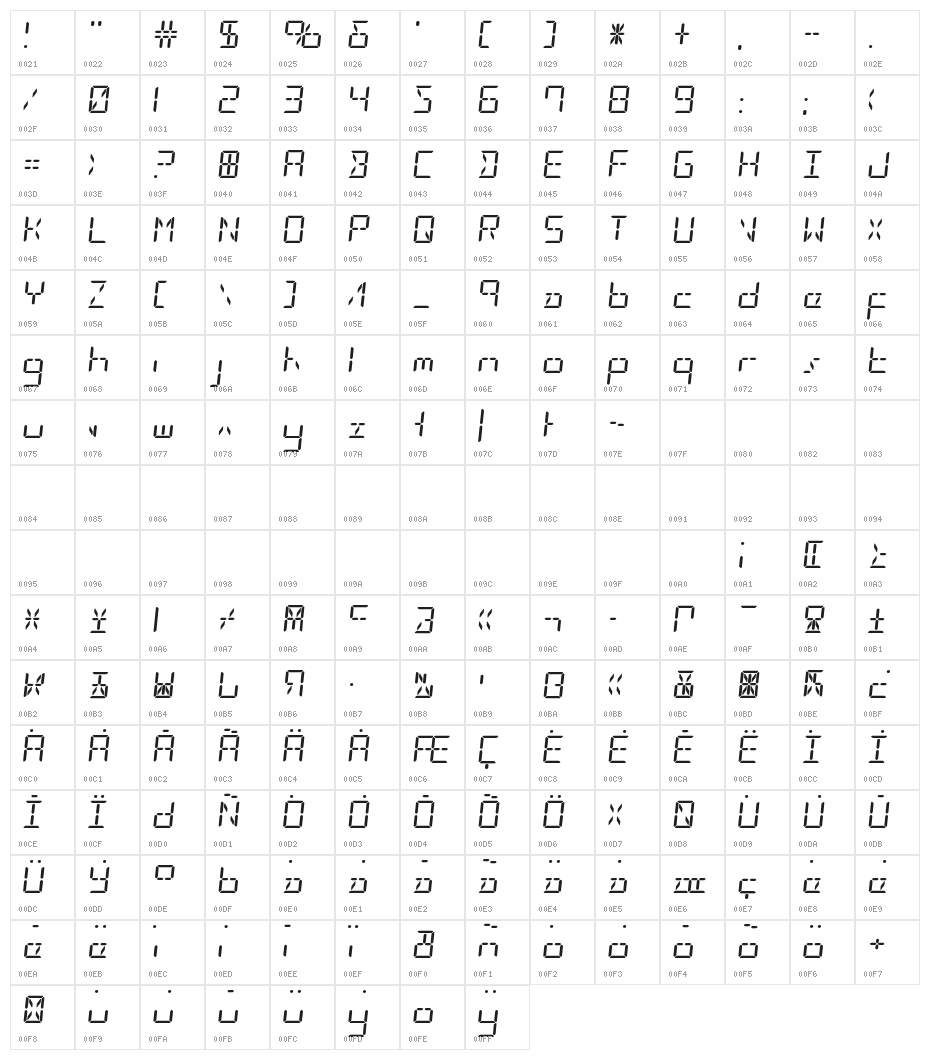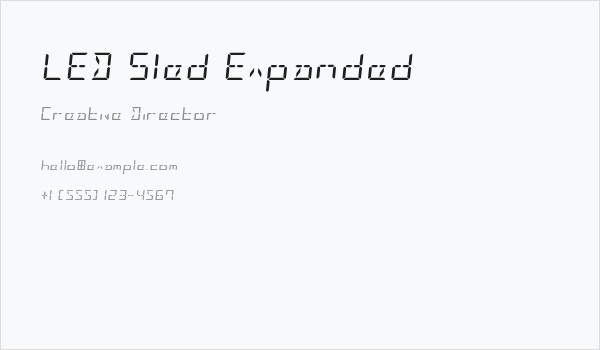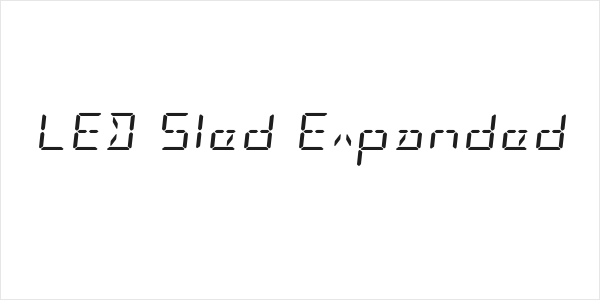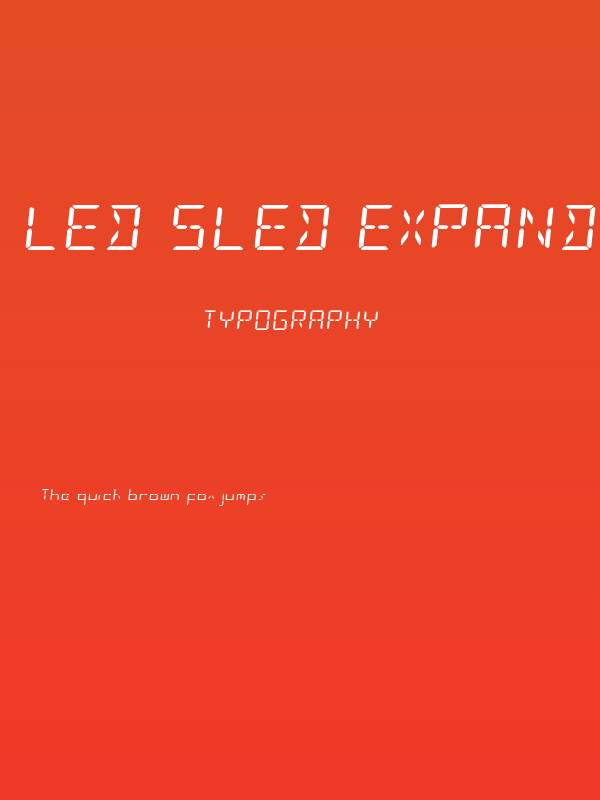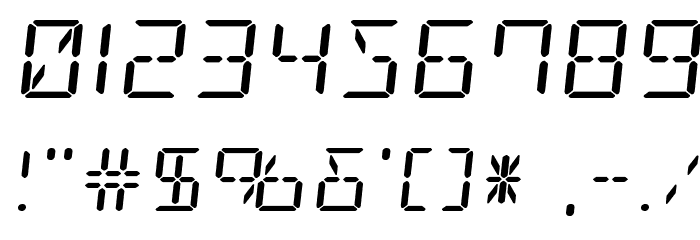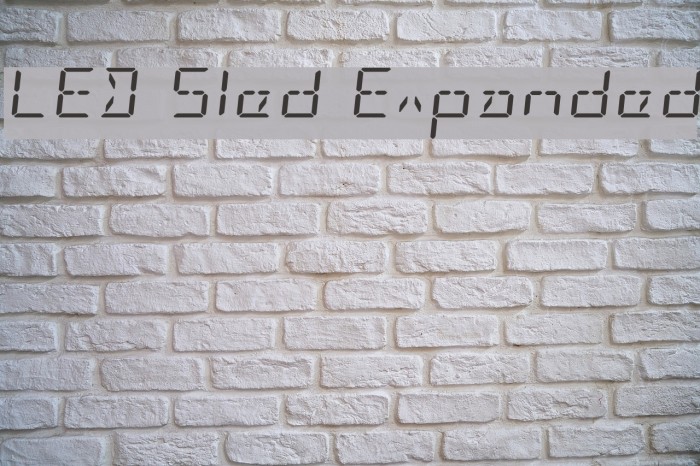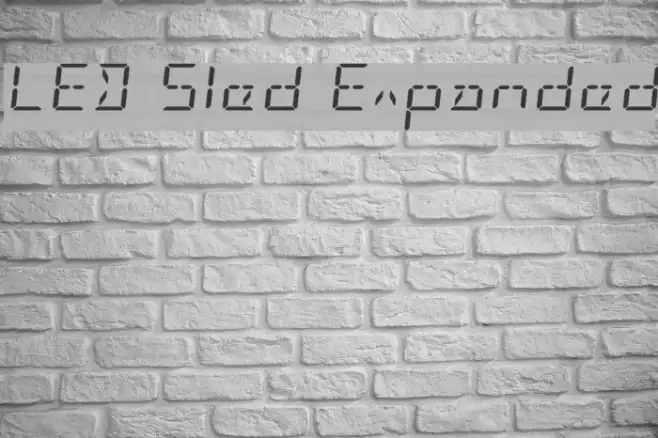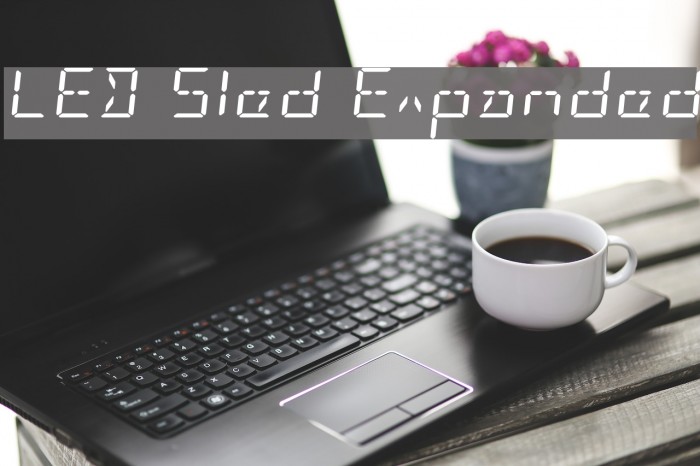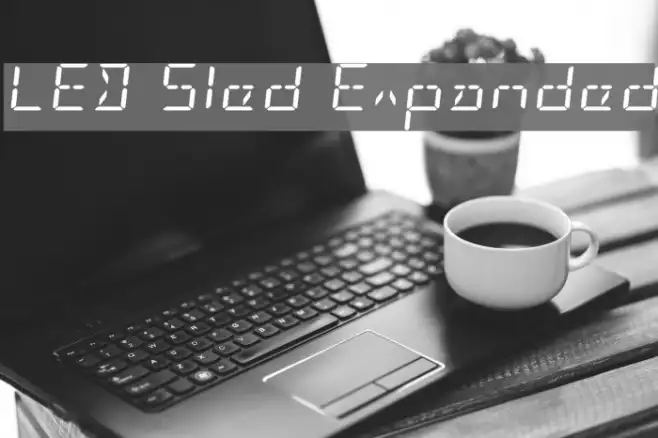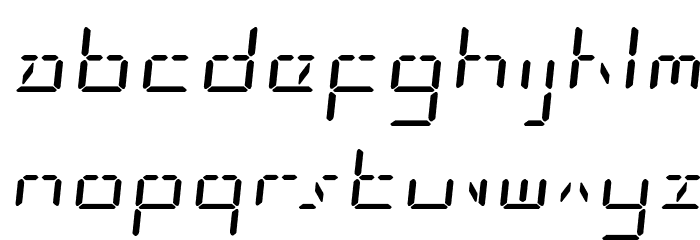
LED Sled Expanded Font
LED Sled Expanded Description
This font features a distinct, futuristic design reminiscent of digital displays or LED screens. Each character is constructed with angular, segmented lines that mimic the appearance of a seven-segment display, commonly found in digital clocks and calculators. The uppercase and lowercase letters maintain a consistent geometric style, with sharp angles and a uniform stroke width. Numbers and special characters follow the same segmented structure, ensuring a cohesive look across all glyphs. This font's unique style makes it ideal for projects that require a modern, tech-inspired aesthetic.
| Proposed Projects | Ideal for digital interfaces, tech branding, futuristic posters, and electronic-themed designs. |